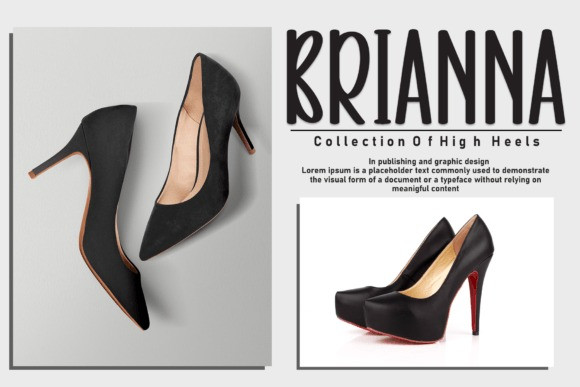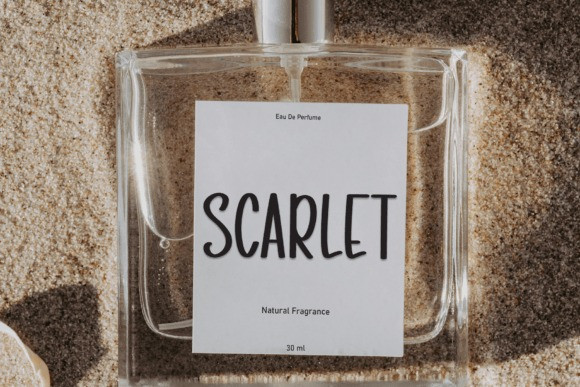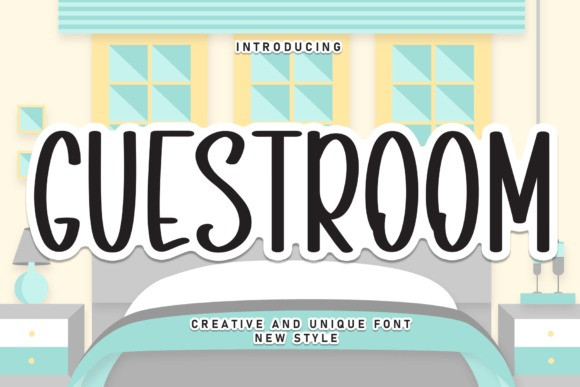
Guestroom Font
Guestroom Font is a sweet and friendly handwritten display font. Cute and fun, this font is ideal for writing wedding invitations, cards, or any other design that might need a fun touch!